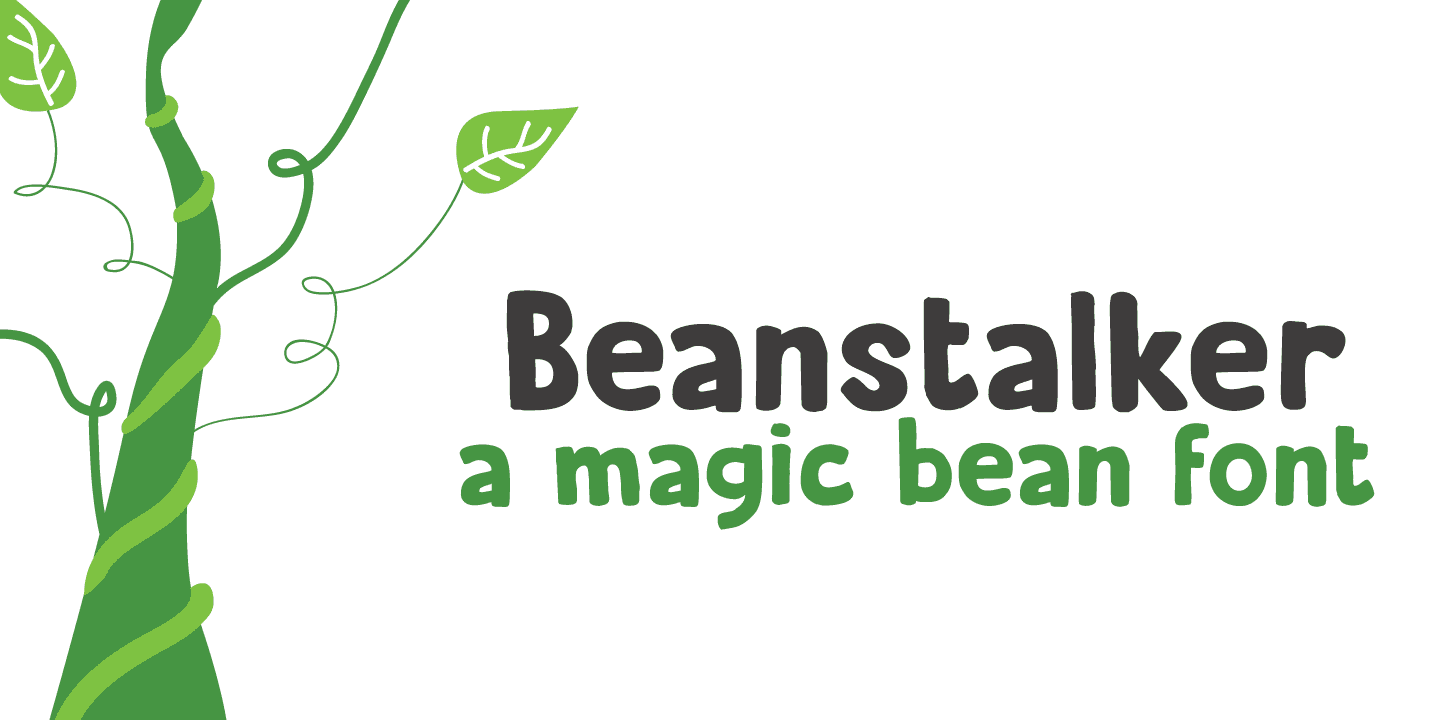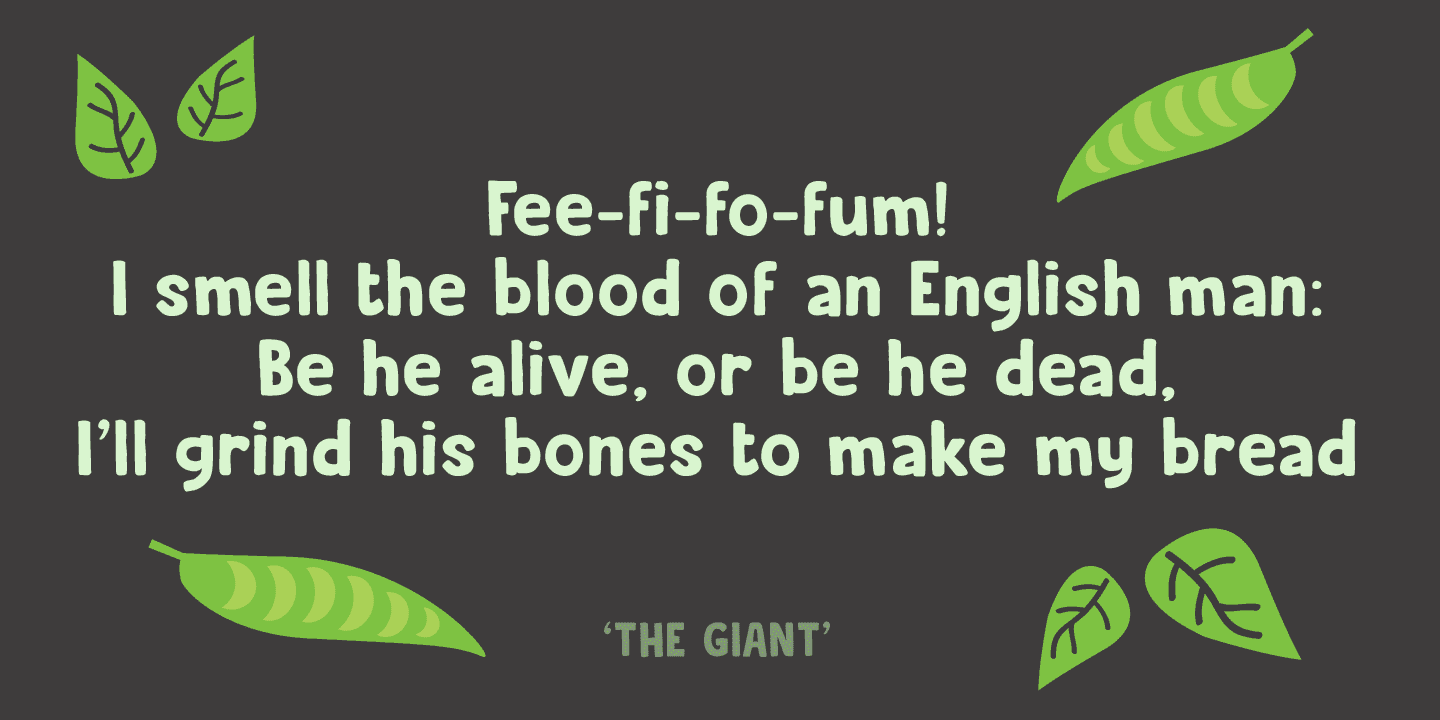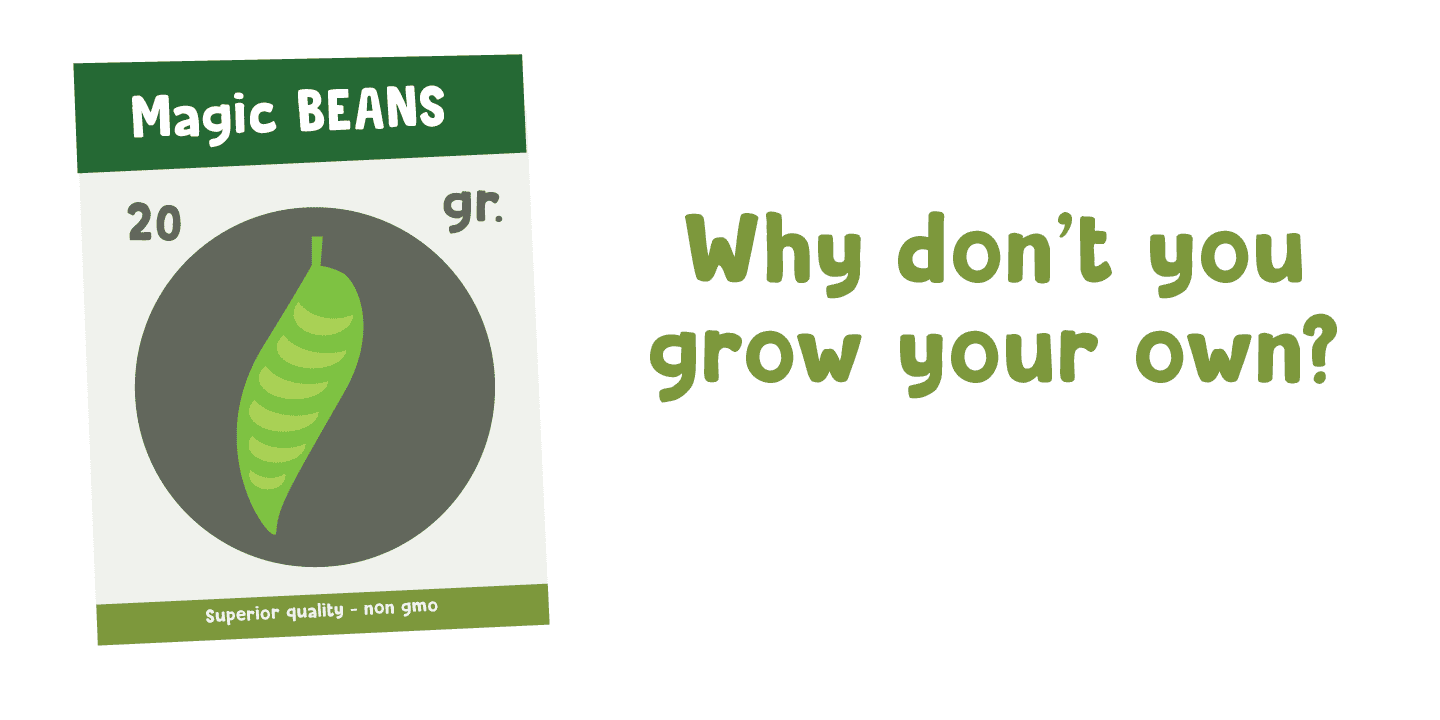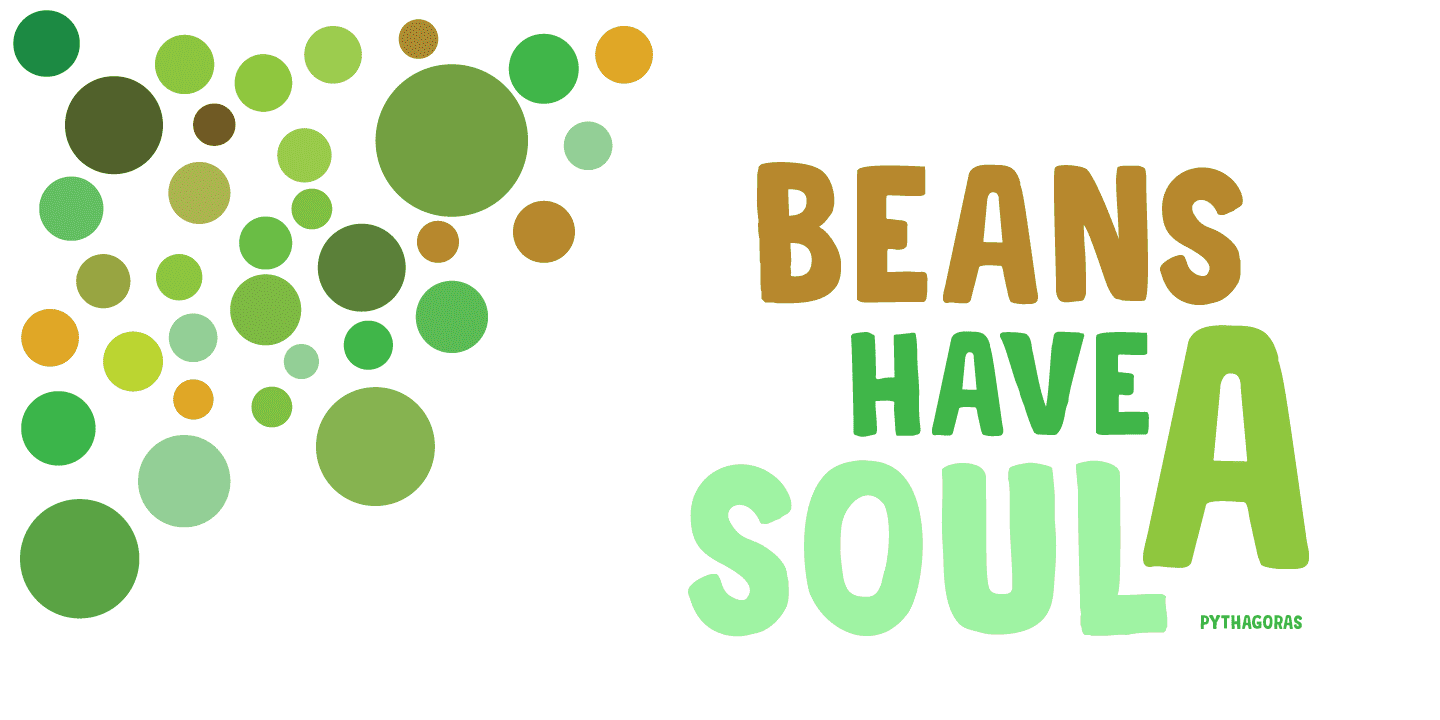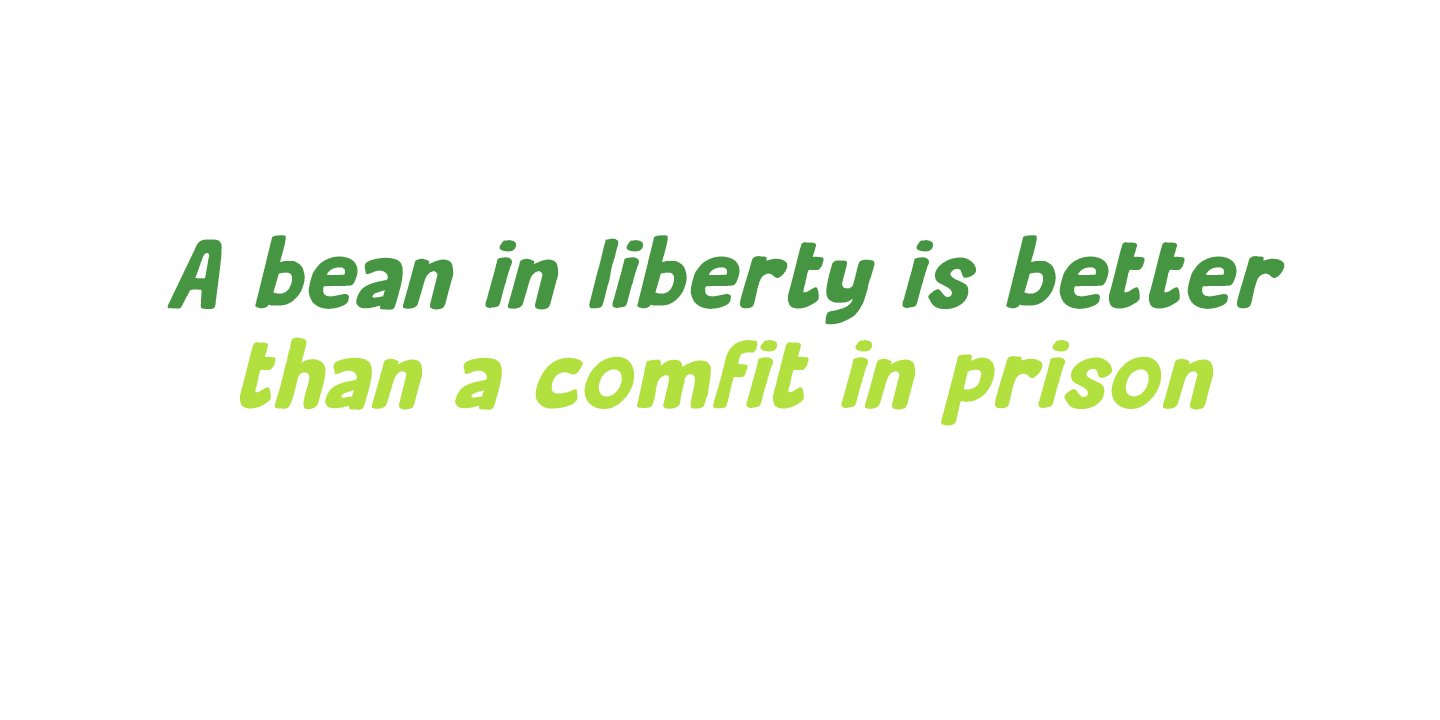
Beanstalker Family (2 fonts)
Beanstalker is a hand made font (I used a fineliner to draw the glyphs). It is quite neat and organized, but does come with some rough edges and a bit of texture.